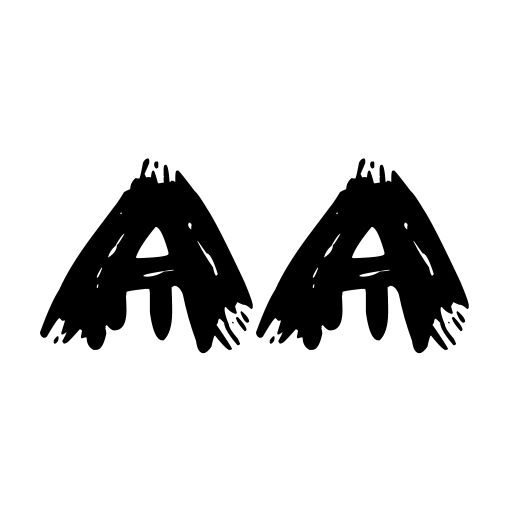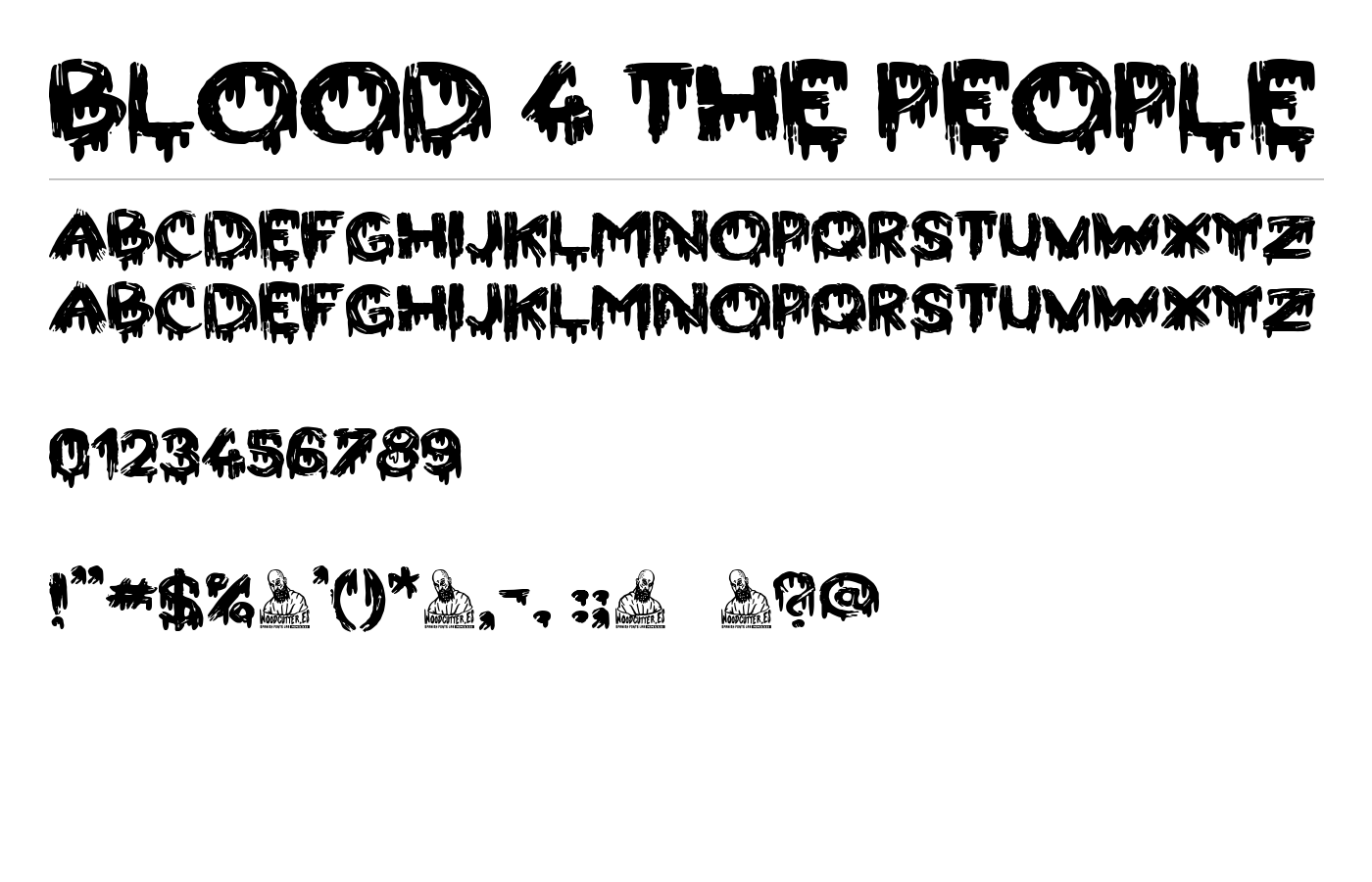
Blood 4 the People is a bold, decorative sans serif font with a striking dripping effect that mimics flowing liquid, giving it a dramatic and edgy appearance. Its uppercase letterforms are thick, slightly condensed, and uneven, conveying a dark, horror-inspired mood perfect for Halloween designs, posters, or any creative project seeking a gritty and intense vibe. This font excels as a headline or display typeface where its unique, eye-catching style can create strong visual impact.
Blood 4 the People Font
About Blood 4 the People Font